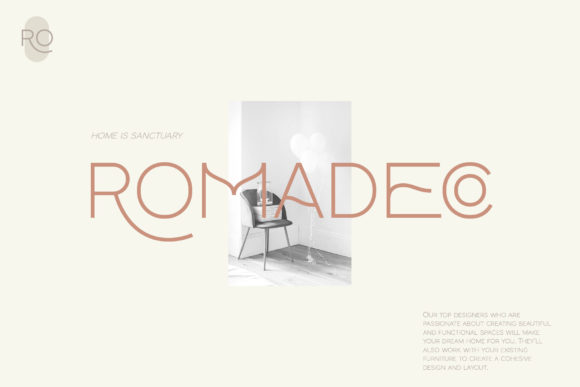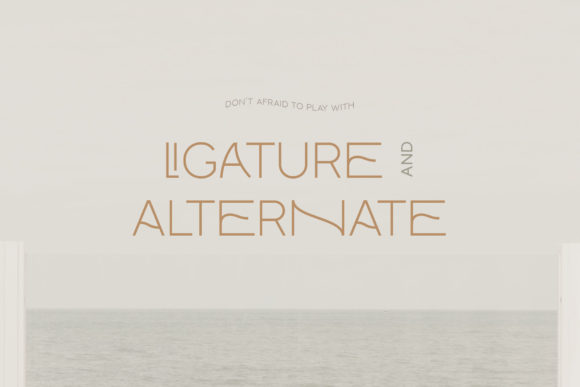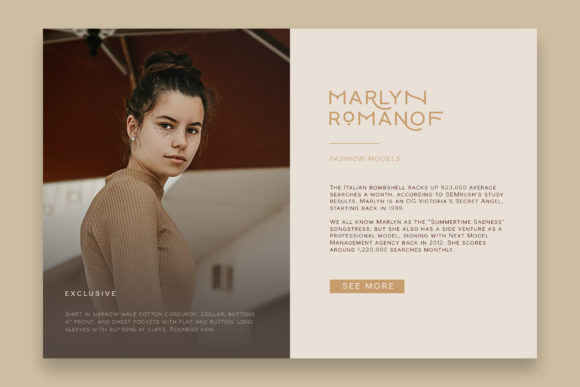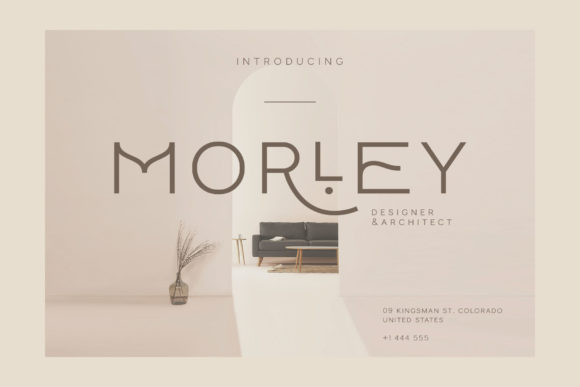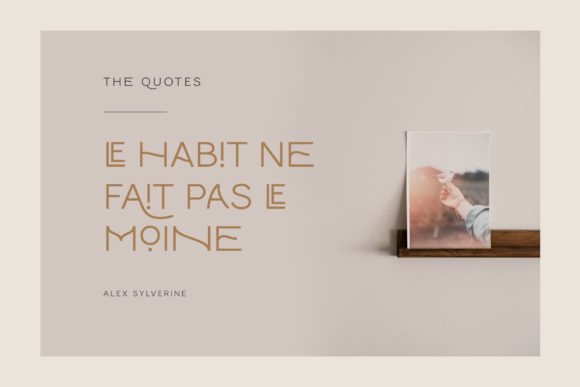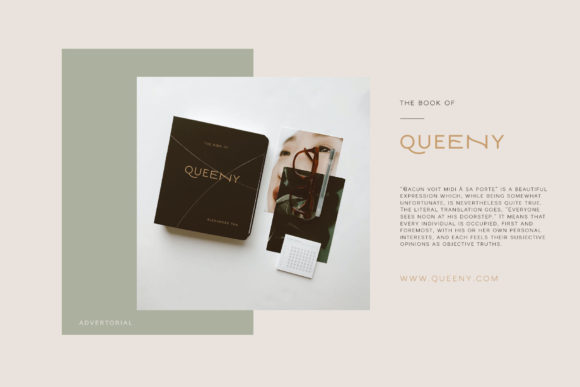
Introduction to Monocole Font
Have you ever found yourself scrolling through design inspiration boards, searching for that one perfect font to elevate your creative project? I know I have. The thrill of stumbling upon a hidden gem that instantly transforms your concept is unmatched. And that’s exactly what happened when I discovered the stunning Monocole Font.
As designers, we’re always on the lookout for high-quality design resources that can help us stand out in a crowded market. And Monocole Font delivers, with its elegant sans serif design and transparent background that allows for seamless layering and composition.
Whether you’re working on a free download project or a paid commission, Monocole Font is an invaluable addition to your design arsenal. Its versatility and sophistication make it the perfect choice for any creative endeavor, from logos to graphics and beyond.
Key Features of Monocole Font
• High-quality, professional font suitable for various creative projects and design resources.
• Unique, elegant design makes Monocole Font an excellent choice for creative projects requiring a touch of sophistication and style.
• Highly versatile font, suitable for use in various design contexts, including logos, typography, and graphic design.
Honest Review: Monocole Font
As a designer, I’m always on the lookout for high-quality design resources that can elevate my creative projects. The Monocole Font is one such resource that caught my attention, and I’m excited to share my honest review with you.
What works well: ✨ The Monocole Font is incredibly versatile, making it suitable for a wide range of design projects, from modern logos to elegant typography. Its clean and minimalist design makes it easy to read and versatile enough to be used in different contexts.
Another feature that stands out is the transparent background, which makes it easy to combine with other design elements. I also appreciate that it’s available for free download, making it an excellent resource for designers on a budget.
However, there are some limitations to consider: ⚠️ The font is not ideal for projects that require a lot of bold or italic text, as it can become difficult to read. Additionally, the font family is relatively small, which may limit its use in certain design applications.
Overall, the Monocole Font is a solid design resource that can add a touch of sophistication to your creative projects. While it may have some limitations, its high quality and versatility make it a valuable addition to any designer’s toolkit.
Tips for Getting the Most Out of Monocole Font
Experiment with different font sizes, colors, and styles to create a unique look. Use the font in combination with other design resources, such as graphics and images, to create a high-quality design. Consider using a transparent background to make your text elements stand out.
The Monocole Font is ideal for creative projects, such as branding, advertising, and editorial design. Its unique style and high-quality design make it a popular choice among designers. You can also use the font to create a free download or share it with others as a design resource.